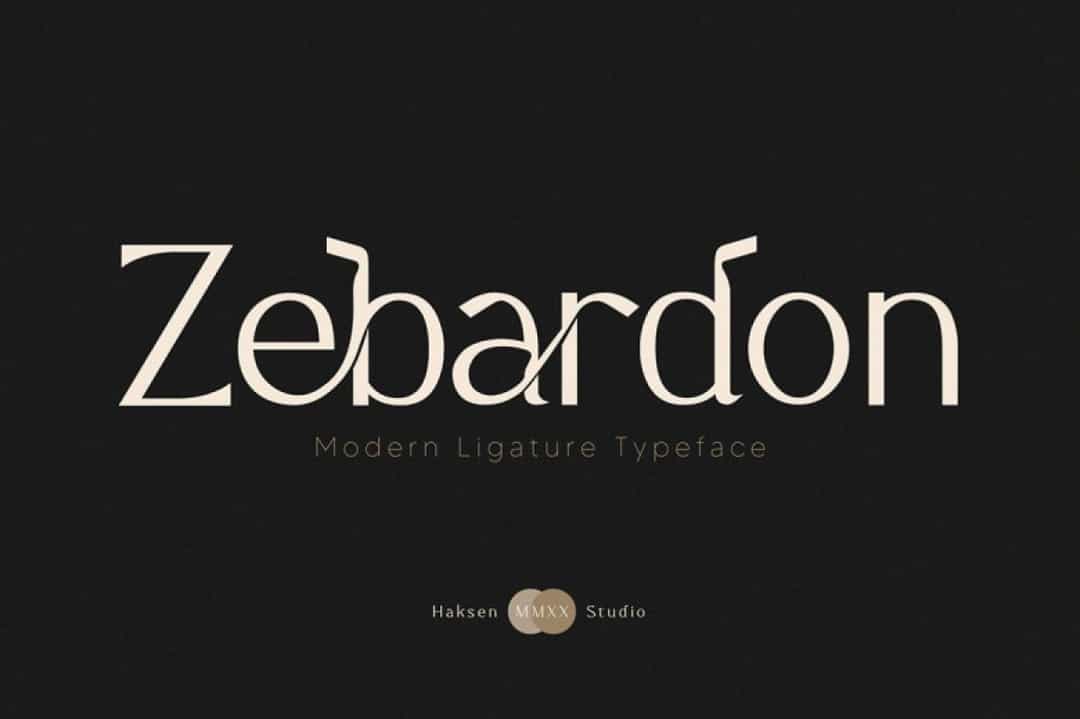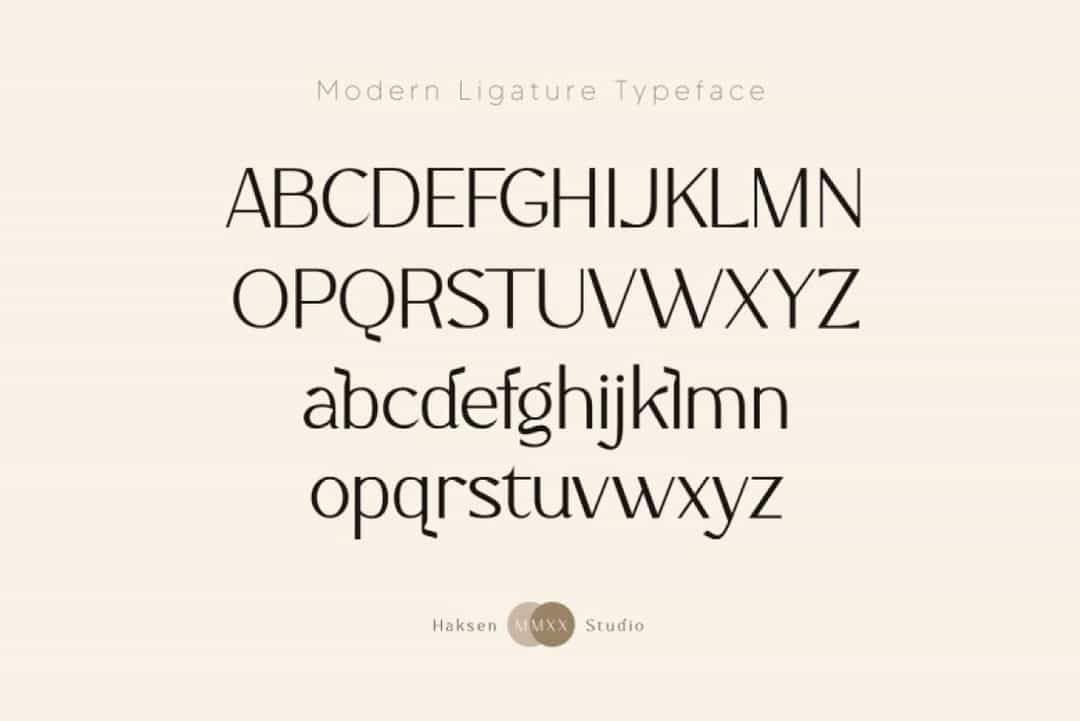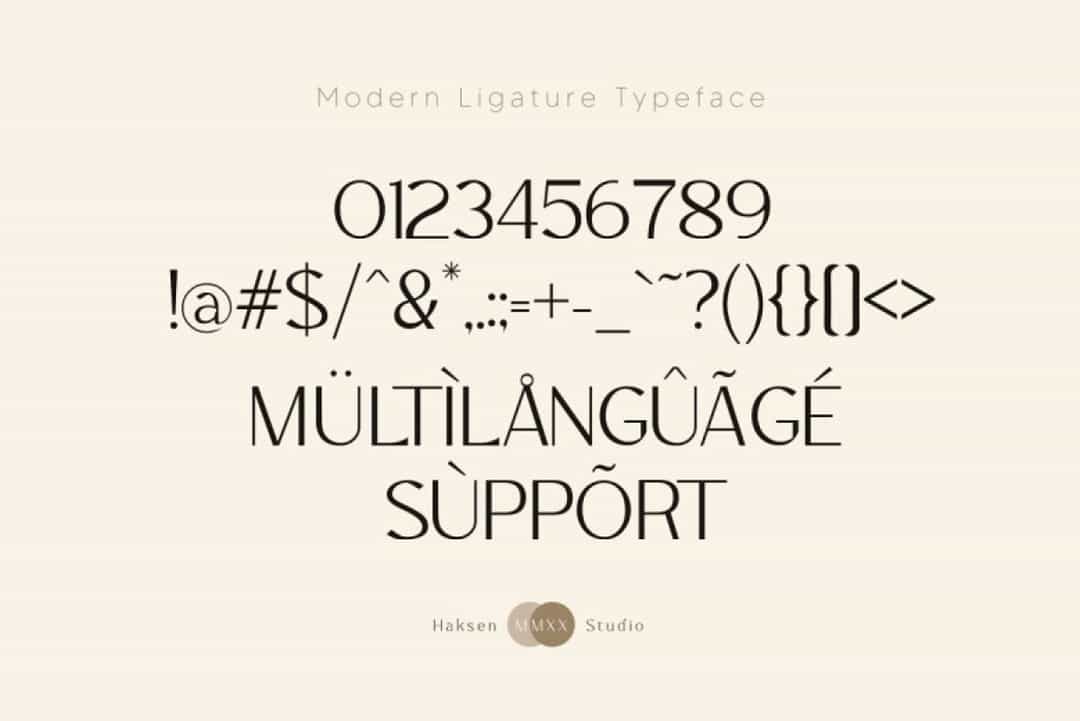
Discover Zebardon Font, part of the Sans Serif collection—a versatile and unique font perfect for adding a personal touch to your projects. Download it for free and enjoy crafting designs with style, from invitations to social media posts. This font is available exclusively for personal use, giving you the freedom to create without limits. Unlock your creativity with Zebardon Font today!
Zebardon is a modern sans serif style that features distinct ligatures for an eye-catching and balanced letter design. There are various ligature styles available which make the letter design truly amazing and it makes headlines posters logos packaging T-shirts etc look magnificent.